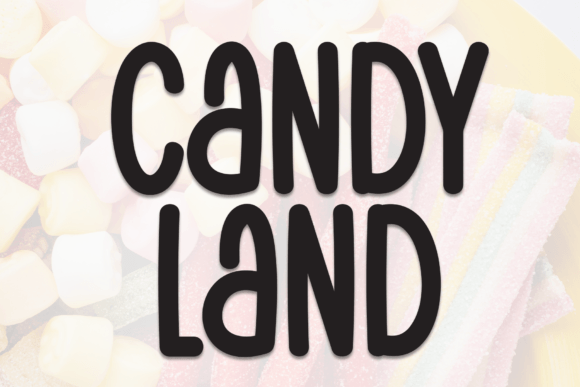
The Sweet Spot: Discovering the Charm of Candy Land Font
I’ll never forget the time I was working on a whimsical children’s party invitation project. My client wanted something that screamed “fun” and “playful,” but I was stuck in a design rut. That’s when I stumbled upon the Candy Land font. It was like a breath of fresh air – sweet, friendly, and full of character. In this article, I’ll share my journey with this delightful font, its features, and how to make the most of it in your designs.
An Honest Review: The Good and the Quirky
What I Love About Candy Land Font ✨
- ✅ Unique and Natural Style: Candy Land’s handwritten charm makes it perfect for a wide range of designs, from kids’ party invites to branding for sweet treats.
- ✅ Versatility: This font can be used for titles, headings, or even body text, making it a great addition to any design library.
- ✅ Ease of Use: Candy Land is easy to read and understand, making it perfect for designs that require clear communication.
- ⚠️ Limited Formality: While Candy Land is perfect for playful designs, it may not be the best fit for formal or professional projects.
- ⚠️ Glyph Limitations: While the font has a range of glyphs, it may not have every special character or symbol you need.
The Story Behind Candy Land Font
Candy Land font was designed with the intention of capturing the whimsical and playful spirit of the classic board game. The designer aimed to create a font that would evoke feelings of nostalgia and fun, making it perfect for designs that require a touch of playfulness.
Q: What type of projects is Candy Land font best suited for?
A: Candy Land font is perfect for playful designs, such as kids’ party invitations, branding for sweet treats, and creative projects that require a touch of whimsy.
Q: Is Candy Land font suitable for body text?
A: While Candy Land font is primarily designed for headings and titles, it can be used for body text in certain contexts, such as children’s books or playful blog posts.